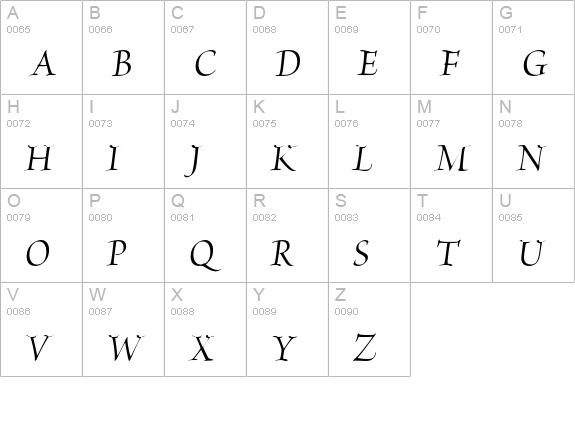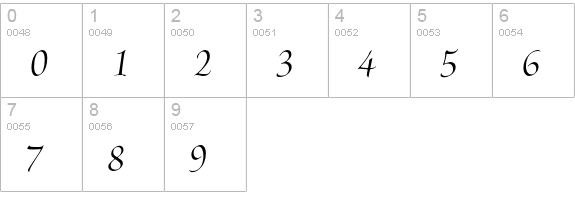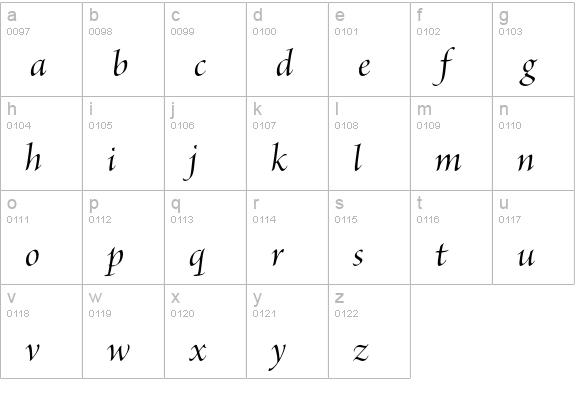
Brioso Pro Medium Italic Display Font Details
Brioso Pro Medium Italic Display is a balanced, medium-weight, italic variant in the Brioso typeface family \xE2\x80\x94 well suited to sub-headlines, navigation, and balanced editorial work.
Brioso Pro Medium Italic Display font exudes a sense of elegance and sophistication with its sleek and modern design. This versatile typeface strikes the perfect balance between traditional and contemporary, making it ideal for a wide range of design projects. The italicized form adds a touch of flair and dynamism, perfect for creating eye-catching headlines and titles. What sets Brioso Pro Medium Italic Display font apart is not just its stunning aesthetics, but also the fact that it is freely available to download at FontsMarket.com. Whether you are working on a branding project, editorial design, or any other creative endeavor, this font is sure to elevate your work and leave a lasting impression. Embrace the beauty and versatility of Brioso Pro Medium Italic Display font today and take your designs to the next level.